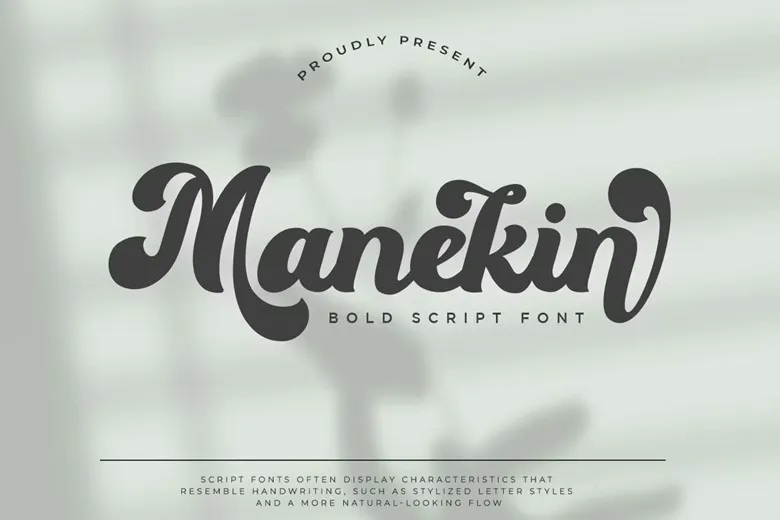
Manekin Font
Manekin is bold script font that has a beauty vintage style. There are also 40+ stylistic Alternates and ligatures on this font as well as multi-language support, also contributing to the creativity of using the font.
This font is ideally suited to your creative work logotype, printed quotes, invitations, cards, product packaging, header, Letterhead, Apparel, Web design, Magazine, Book, etc.
Manekin Bold Script Font